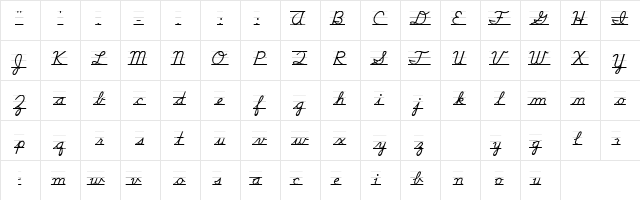
DNealianGuides Regular
Design Context for DNealianGuides Typeface
DNealianGuides offers clean, dependable letterforms without strong stylistic allegiance, making it a practical choice for designers who need flexibility.
Pro Tip: Use DNealianGuides in both headline and body roles to test its range before committing to a single application.